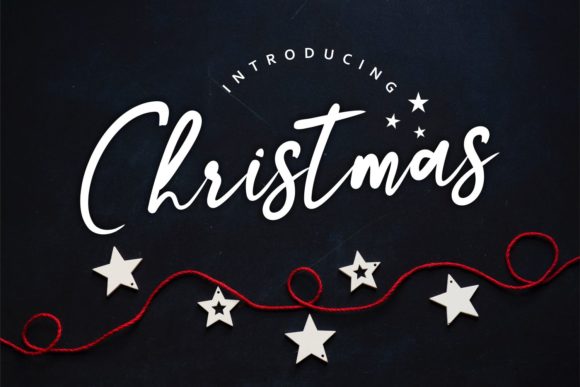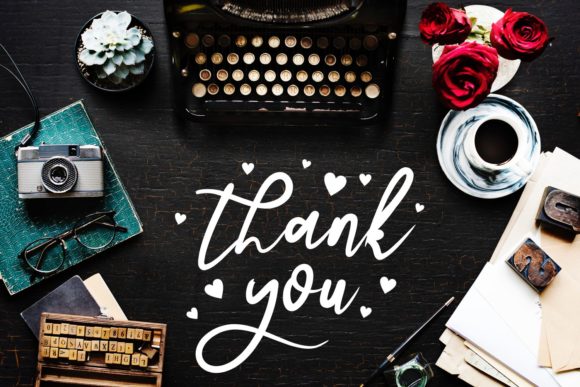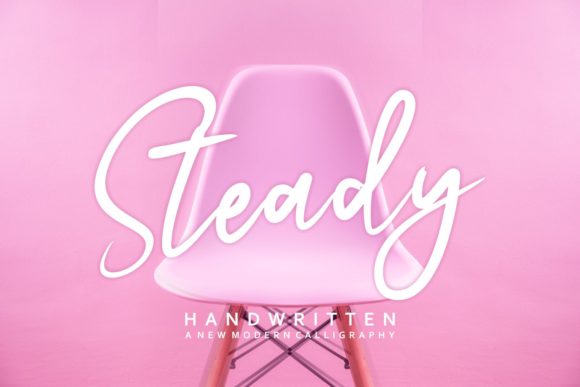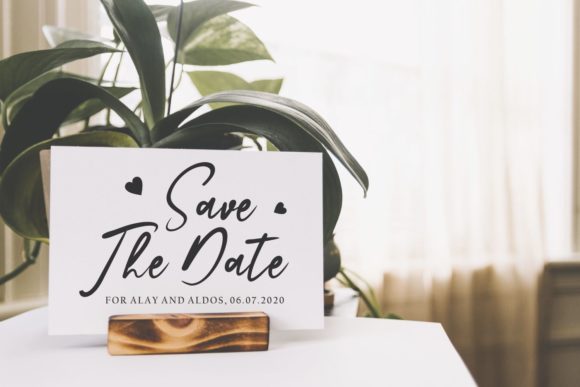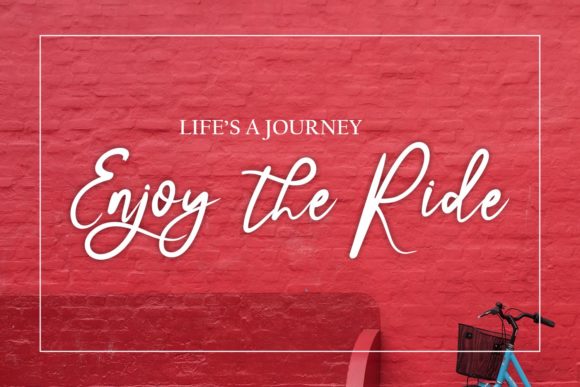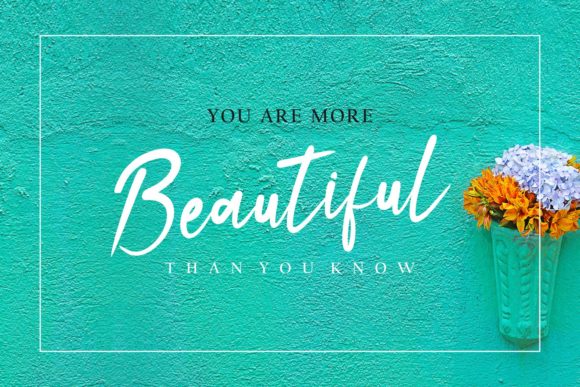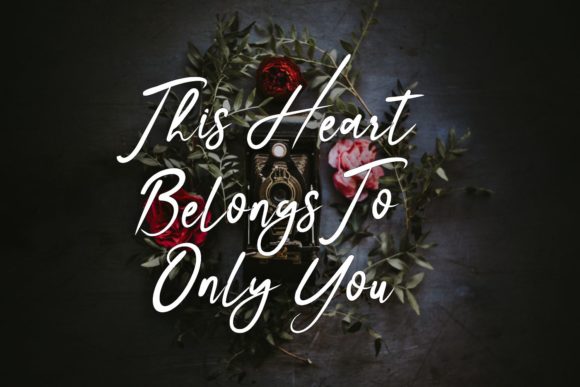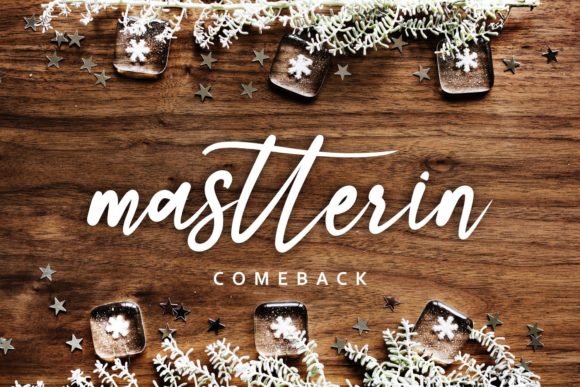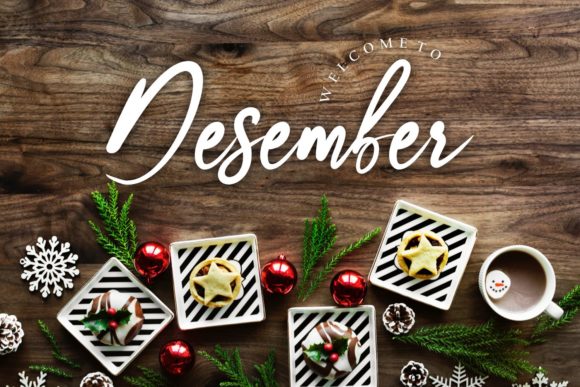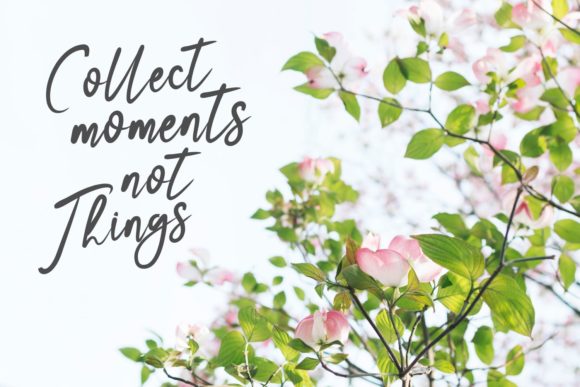
Christmas Font
The Christmas script font is a delightful and fun typeface designed with a smooth, handwritten style, making it an ideal choice for a variety of creative projects. Its versatility lends itself well to branding, logos, product packaging, and more, providing a playful and stylish touch to your designs.
One of the standout features of The Christmas font is its smooth and handwritten quality. This characteristic adds a touch of authenticity and warmth to the script, making it particularly well-suited for projects that require a friendly and approachable aesthetic.
The font’s flexibility shines through its suitability for diverse applications. Whether used in branding projects, logos, or product packaging, The Christmas brings a sense of fun and whimsy that can elevate the visual appeal of your designs. Its smooth, flowing style adds a dynamic and lively quality, making it perfect for projects that require a playful touch.
The Christmas font’s adaptability extends to its use as a stylish text overlay. Whether placed on a background image or utilized for any design requiring a sprinkle of elegance, the font seamlessly integrates to enhance the overall visual impact. This versatility makes it a valuable asset for designers seeking a font that effortlessly combines style and charm.
In summary, The Christmas is more than just a font; it’s a fun and stylish design tool that adds a playful and handwritten flair to your projects. Its smooth and lively script is well-suited for a range of applications, making it a go-to choice for those looking to infuse a touch of fun and elegance into their creative endeavors.